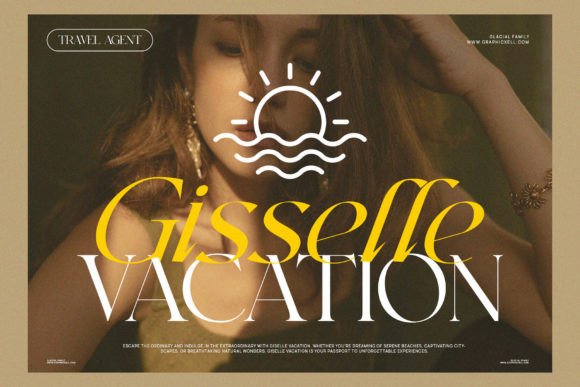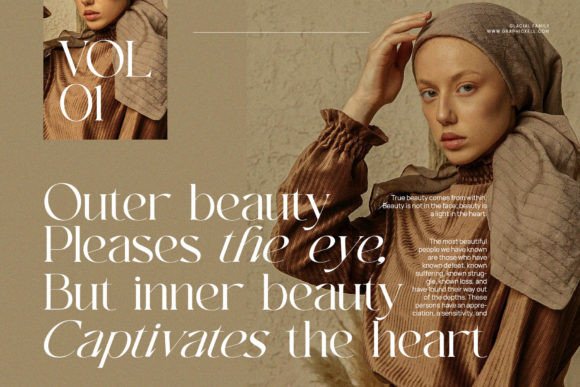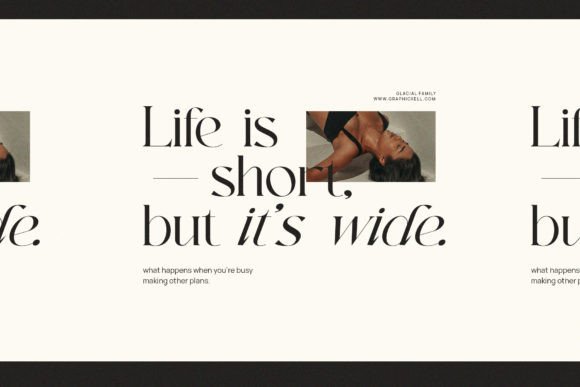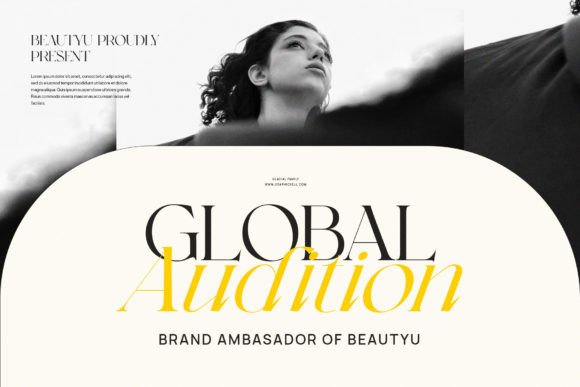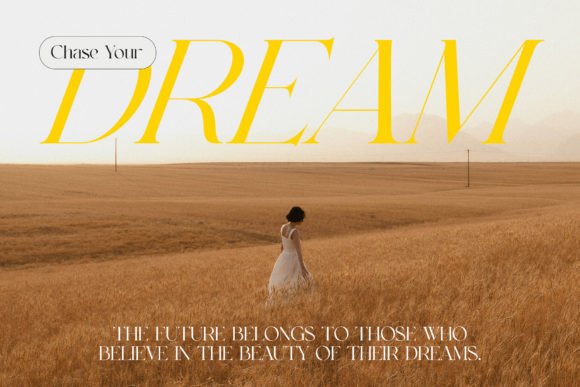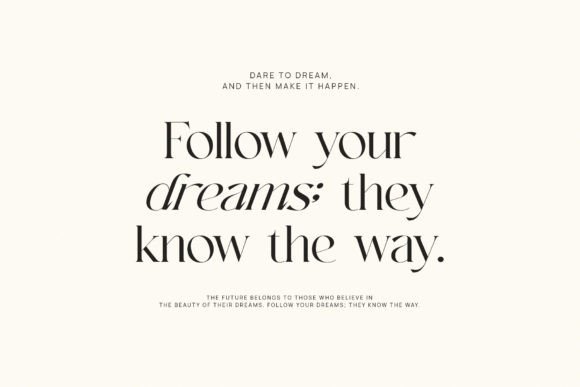
Introduction to Glacial Family Font
Have you ever stumbled upon a font that makes your design project stand out from the crowd? That’s exactly what happened to me when I discovered the Glacial Family Font. I was working on a creative project with a transparent background, and I needed a font that would add a touch of elegance and sophistication. As I browsed through design resources, I came across Glacial, and I was immediately drawn to its unique style.
What I love about Glacial is its ability to bring a modern twist to traditional serif fonts. With its high-contrast strokes, vertical pressure, and thin hair-line serifs, it’s a design resource that’s hard to resist. And the best part? It’s available for free download, making it a valuable addition to any designer’s toolkit.
Whether you’re working on a logo, billboard, fashion label, or poster, Glacial Family Font is sure to impress. Its unique reversed diagonal axis style gives it a stylish edge that’s sure to get you noticed. So, if you’re looking for a font that’s both high-quality and free, look no further than Glacial Family Font.
Key Features of Glacial Family Font
- Unique, modern design perfect for creative projects and presentations
- High-quality font with transparent background, ideal for use on images and graphics
- Glacial Family Font is a versatile, professional font suitable for a variety of creative applications, including logos, branding, and marketing materials
Honest Review: Glacial Family Font
I recently had the opportunity to work with the Glacial Family Font and I must say, it was a pleasant experience. As a designer, I’m always on the lookout for high-quality design resources that can elevate my creative project.
The Glacial Family Font does not disappoint. It’s a versatile font that’s perfect for a wide range of designs, from logos to brochures. What works well is its ability to adapt to different contexts, making it a great addition to any design project.
- ✨ High quality design that’s perfect for any creative project
- ✨ Versatile font that can be used for a wide range of designs
However, there are a few limitations to consider. The font doesn’t support transparent backgrounds, which can be a bit restrictive for designers who need to work with complex backgrounds.
- ⚠️ No support for transparent backgrounds
- ⚠️ Limited customization options
Overall, I’d say the Glacial Family Font is a great addition to any designer’s toolkit. While it may have some limitations, its high quality and versatility make it a valuable resource for any creative project.
Tips for Getting the Most Out of Glacial Family Font
Use the Glacial Family Font for creative projects that require a high-quality, elegant design. Experiment with different font sizes, colors, and styles to achieve the desired effect. Combine the font with other design elements, such as images or shapes, to create a unique and eye-catching design.
The Glacial Family Font is ideal for use in design resources, such as logos, business cards, and brochures. It’s also great for use in digital design projects, such as social media graphics, email templates, and website headers. With its high-quality design and transparent background capabilities, the Glacial Family Font is a valuable design resource for any creative project.